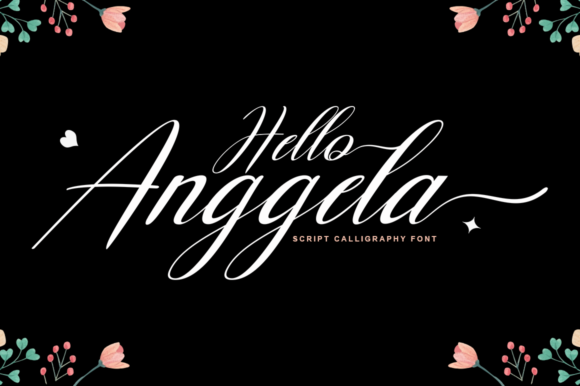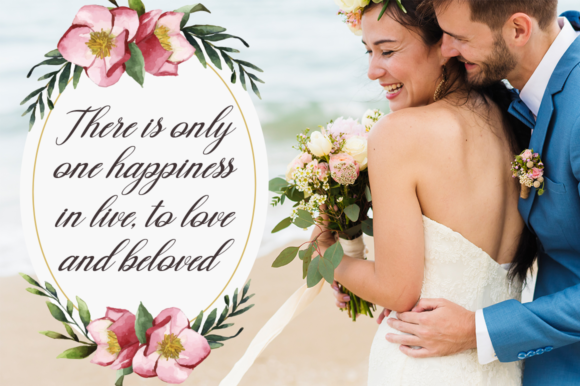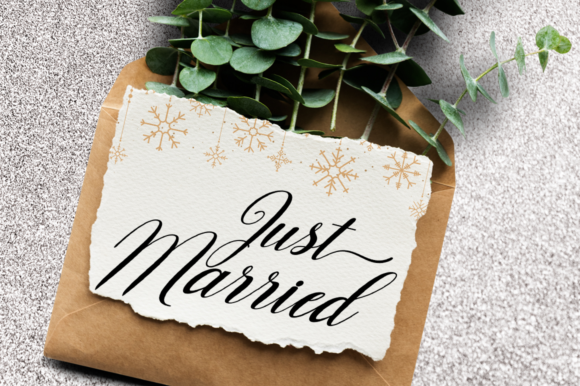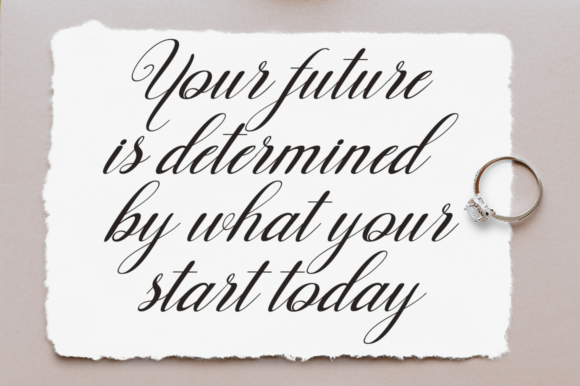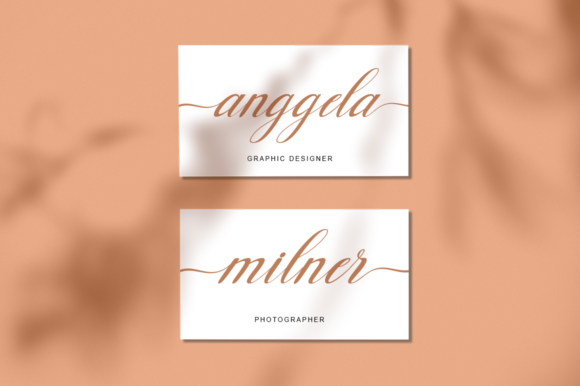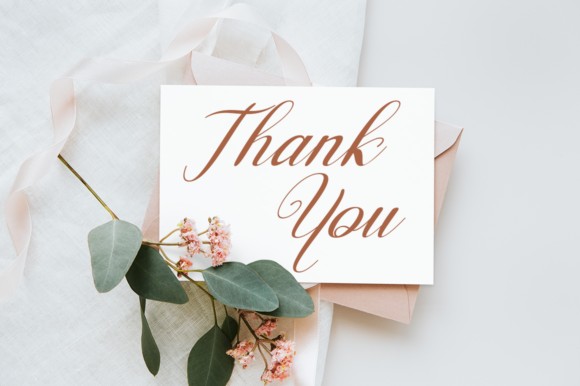
Hello Anggela Font
About Hello Anggela Font
Hello Anggela font is a true embodiment of elegance and sophistication. Its delicate and fashionable script exudes a sense of charm and allure that is perfect for a wide range of branding projects.
Imagine Hello Anggela gracing the forefront of a logo, where its graceful curves and flowing strokes create a sense of timeless beauty. The font’s intricate details add a touch of refinement, making a bold and memorable statement that captivates the audience. It’s not just a font; it’s a visual representation of your brand’s identity and values.
But Hello Anggela doesn’t stop at logos. Its versatility shines through in various creative endeavors, whether it’s t-shirt printing that demands attention or the creation of stunning and eye-catching product designs. The font’s exquisite swashes and glyphs provide a level of customization that allows you to tailor your designs to perfection.
And with the added benefit of being PUA encoded, Hello Anggela empowers you to explore its full potential. Every glyph, ligature, and swash is easily accessible, giving you the creative freedom to craft designs that are truly one-of-a-kind. It’s like having a box of artistic tools at your disposal, ready to transform your ideas into captivating visuals.
Hello Anggela’s delicate and fashionable script is a testament to your commitment to quality and style. Its timeless appeal makes it a font that can evolve with your brand, adapting to changing trends while maintaining its classic beauty. Whether it’s greeting cards, product packaging, or any other creative endeavor, Hello Anggela adds a touch of sophistication and elegance that elevates your designs to new heights.
So, let Hello Anggela be your creative partner, a font that breathes life into your ideas and transforms them into stunning visual experiences. With Hello Anggela, you’re not just designing; you’re creating a lasting impression that resonates with your audience and sets you apart in a crowded design landscape.